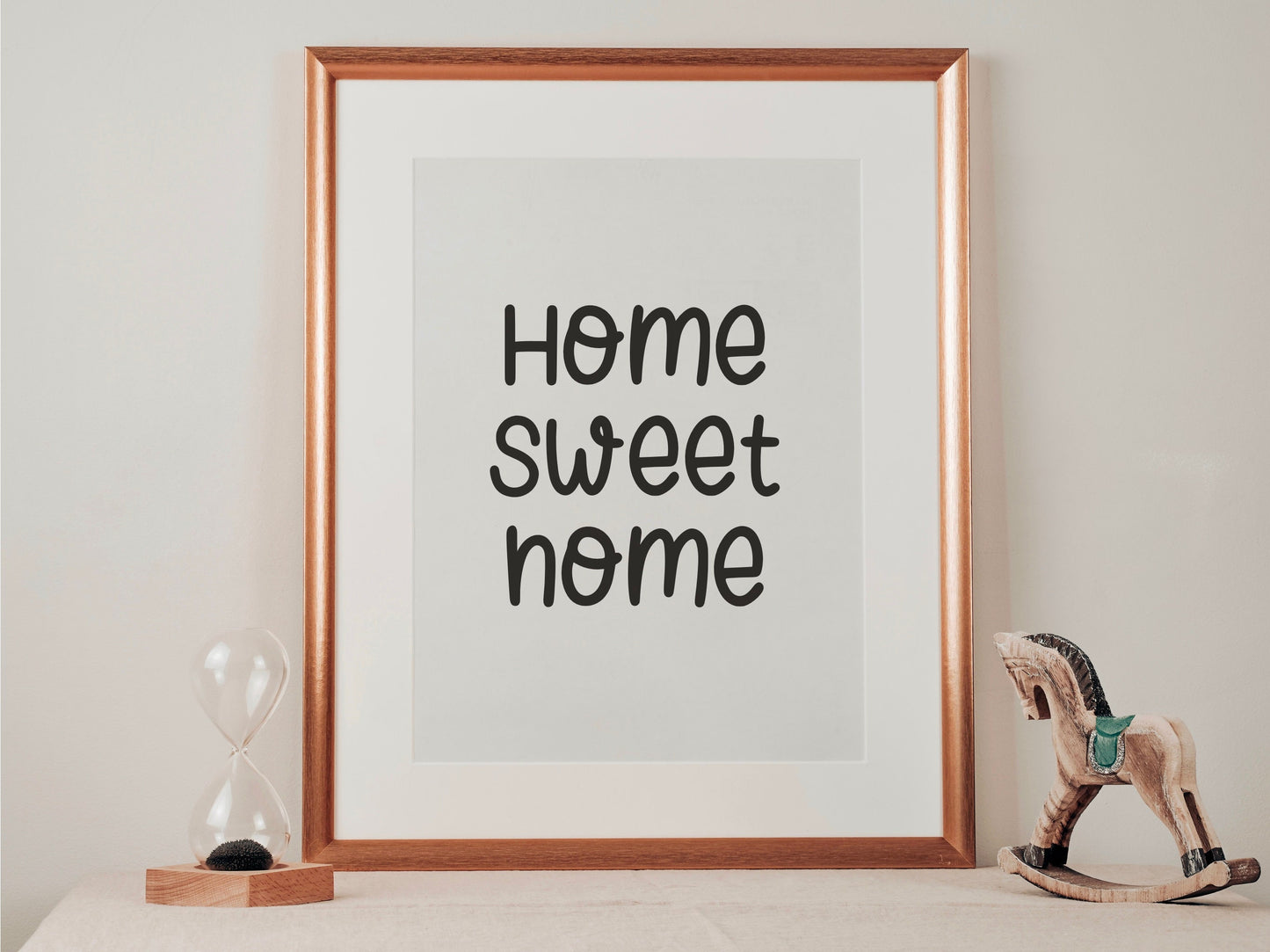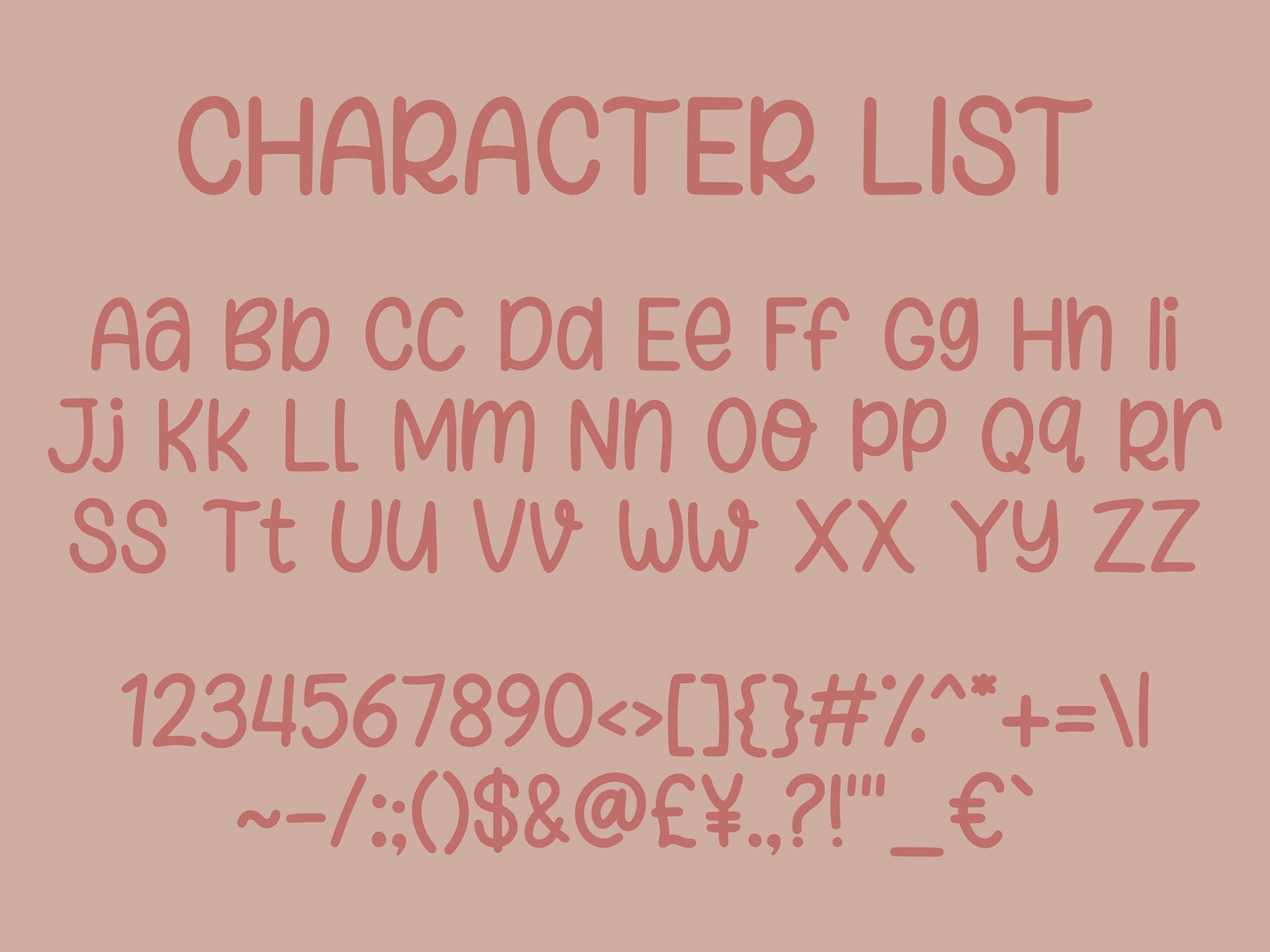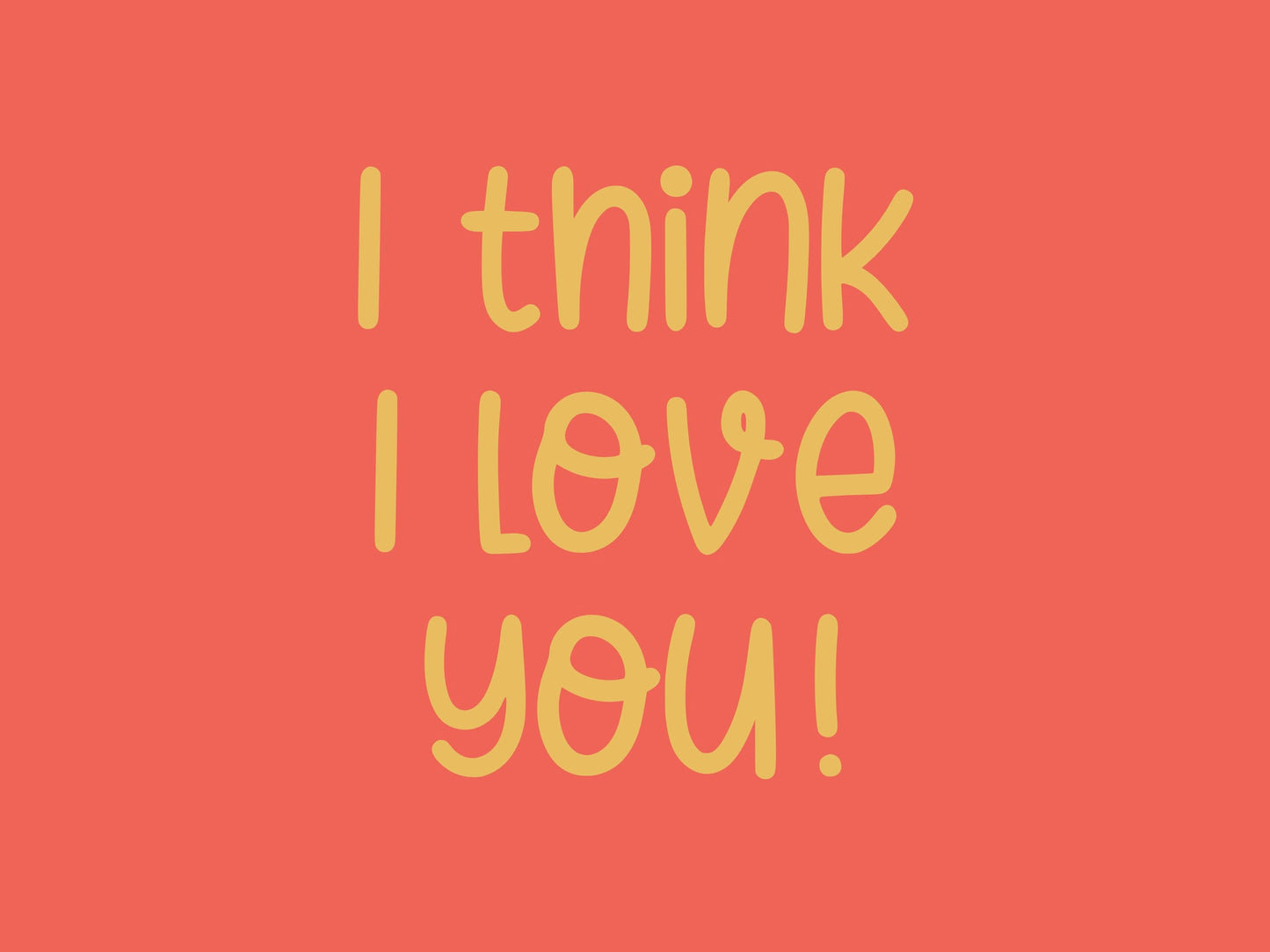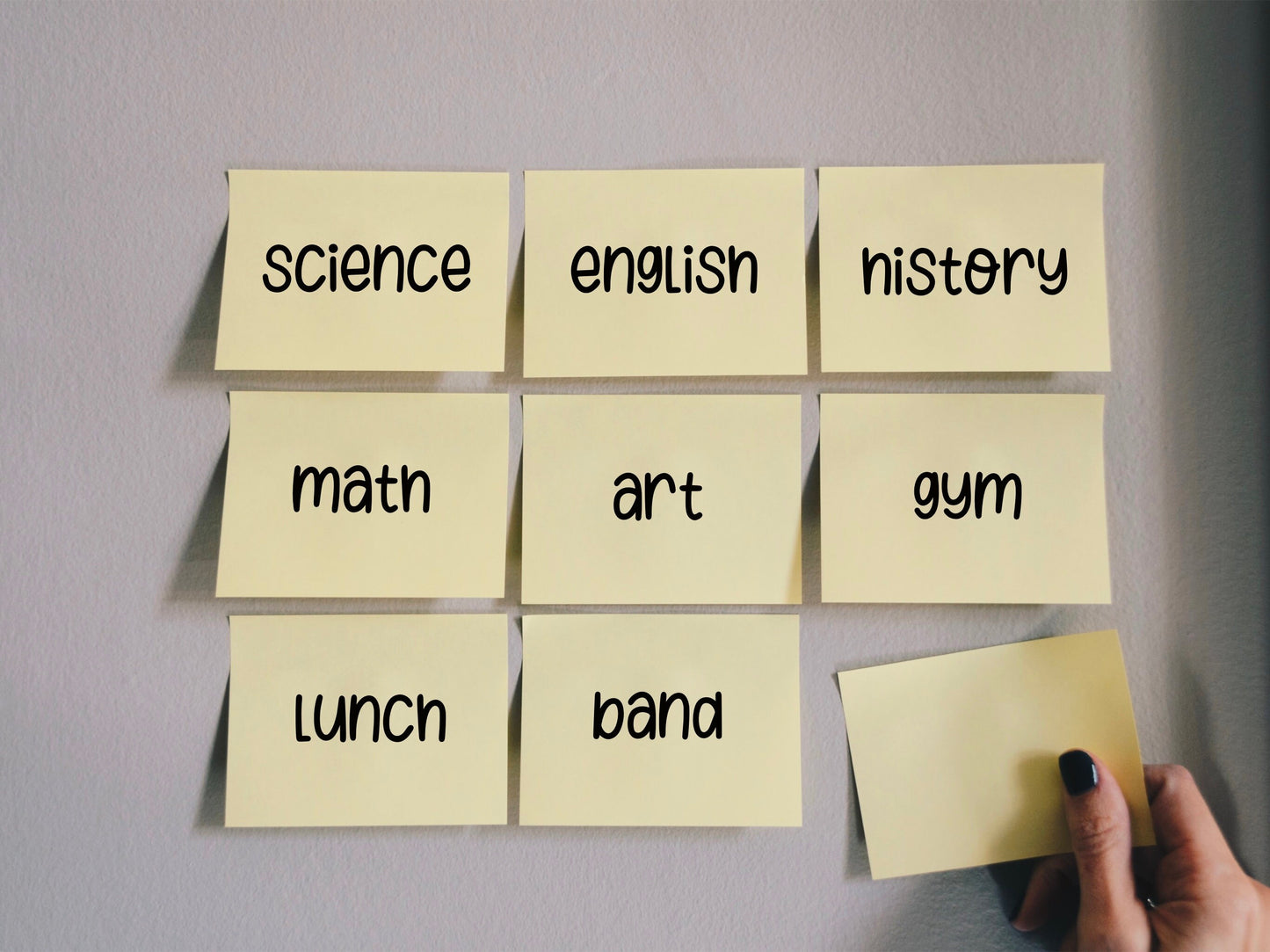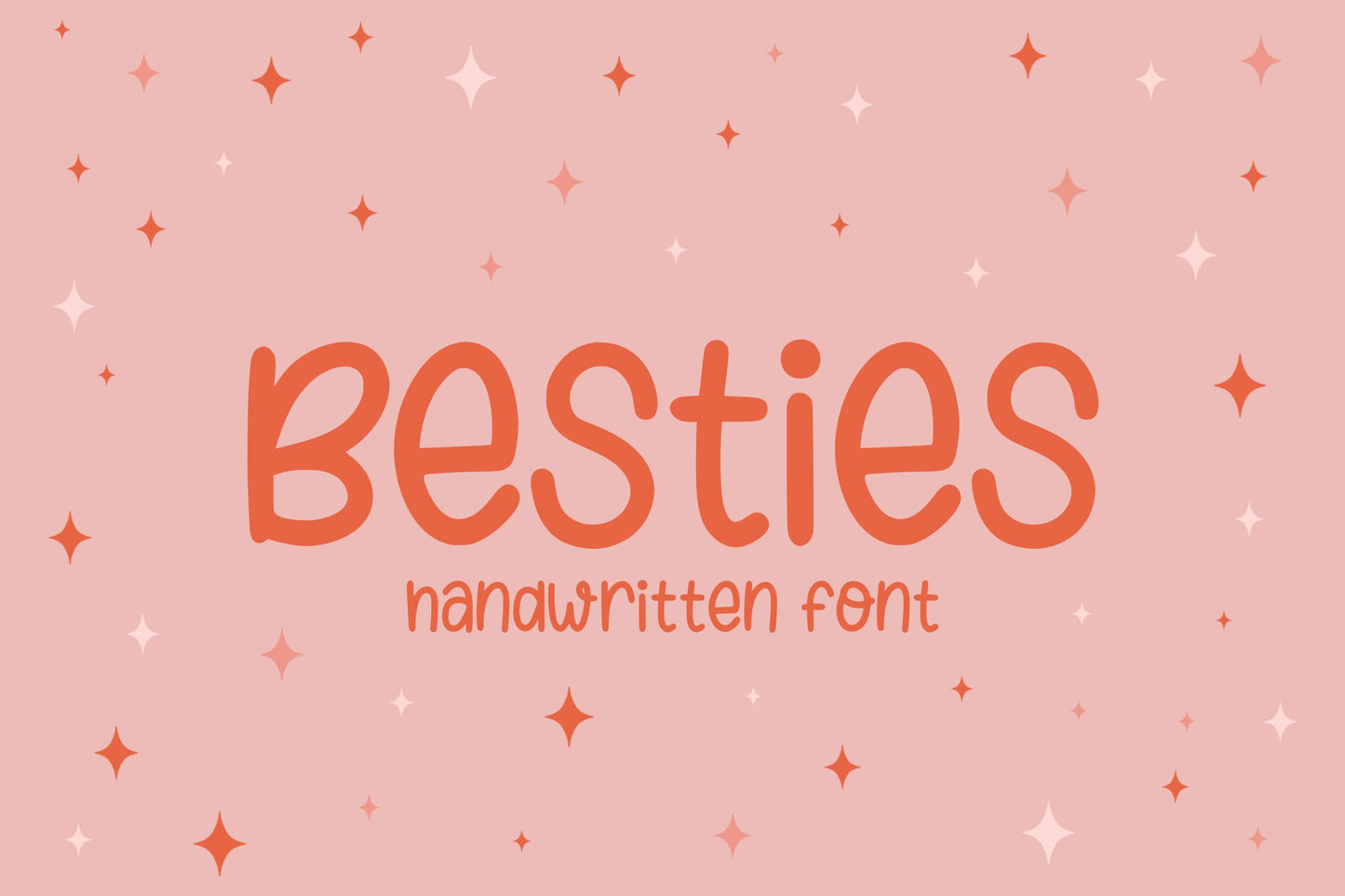
Besties Handwritten Font
This is my Besties handwritten/hand drawn font. This unique, medium weight monoline font with round edges will add a fun, cheerful, handmade flare to your design! It would be absolutely perfect for casual, playful designs on stickers, t-shirts, posters, etc.!